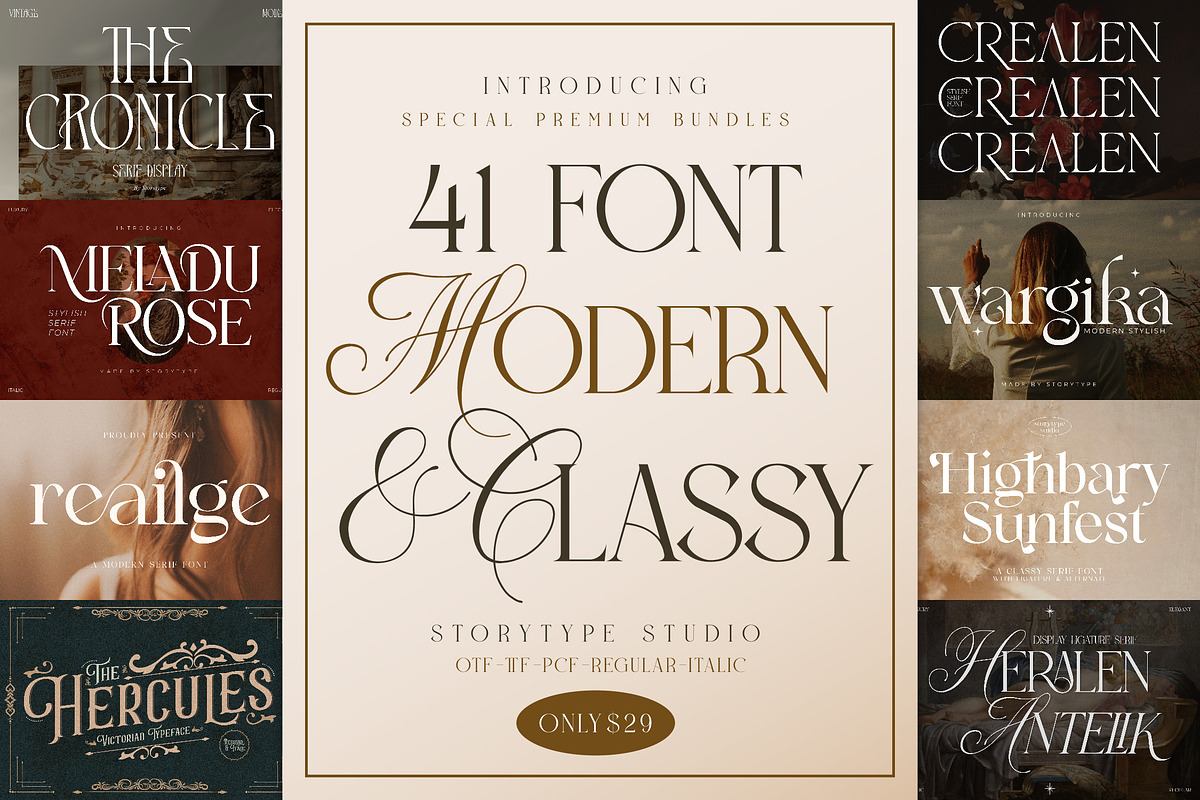
Modern & Classy Serif Font Free Download
Make your designs stand out with Modern & Classy Serif Font Free Download — a refined and elegant serif typeface that combines modern aesthetics with timeless class. Perfect for branding, logo design, editorial layouts, product packaging, and any project that demands a sophisticated and professional touch.
features clean lines, balanced proportions, and classic serif details, making it versatile for both large headlines and body text. It includes uppercase and lowercase letters, punctuation, numerals, and multilingual support, providing the flexibility you need for a wide range of creative projects.